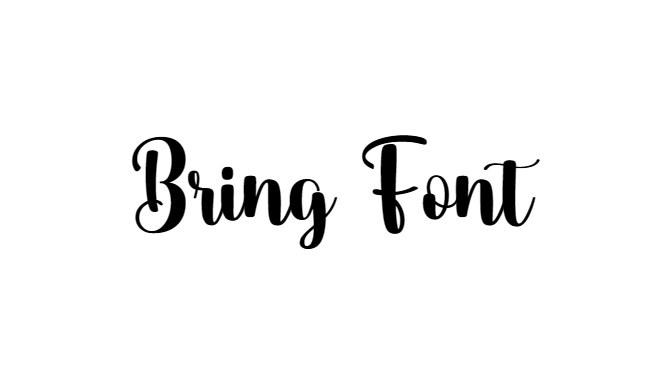
Bring
Bring is a calligraphy font (2022). Its flowing, pen-made letters give names and short phrases a personal, polished look. It's a free download, and you can try it with your own text in the preview above first.
With complete upper and lowercase letters and all ten digits, Bring is ready for real wording, not just a single headline. Everyday marks like &, !, ? and @ are there too. Thanks to its accented letters, it also works for Spanish, French, Portuguese and Italian, not just English.
Think of Bring for wedding invitations, certificates and elegant quotes. Script fonts read best in short bursts, so keep it to names, titles and one-line quotes. Skip all caps: script capitals are drawn to start a word, not to fill one.